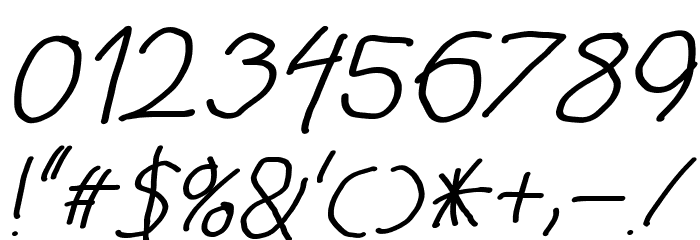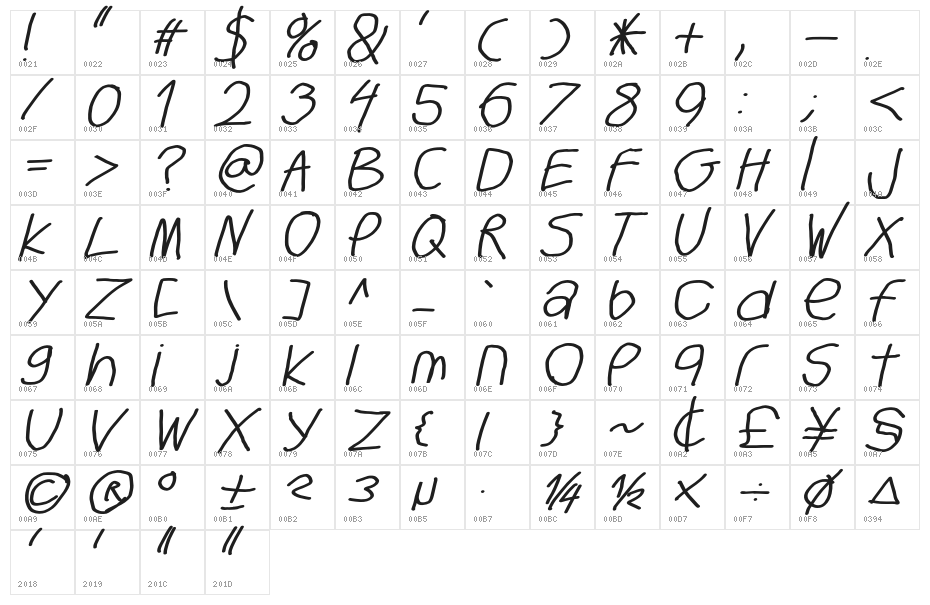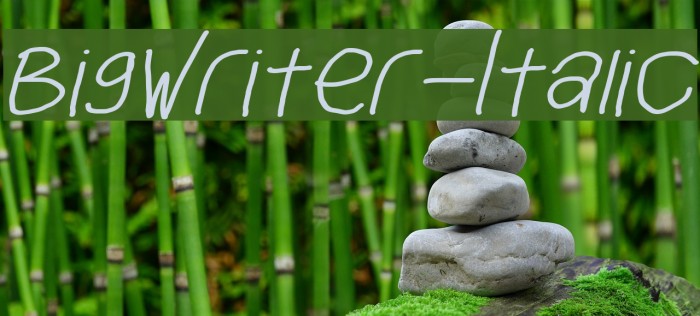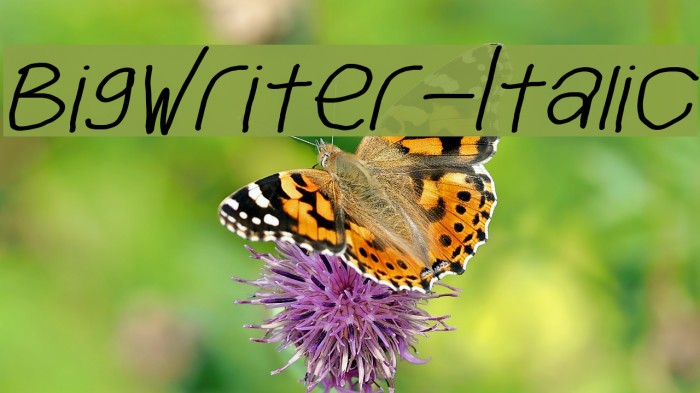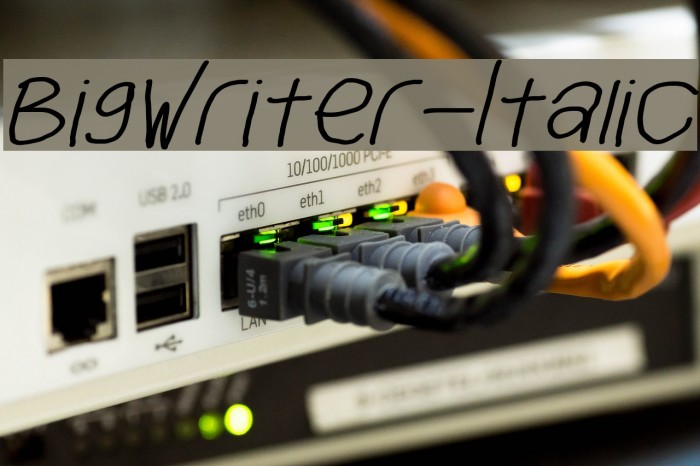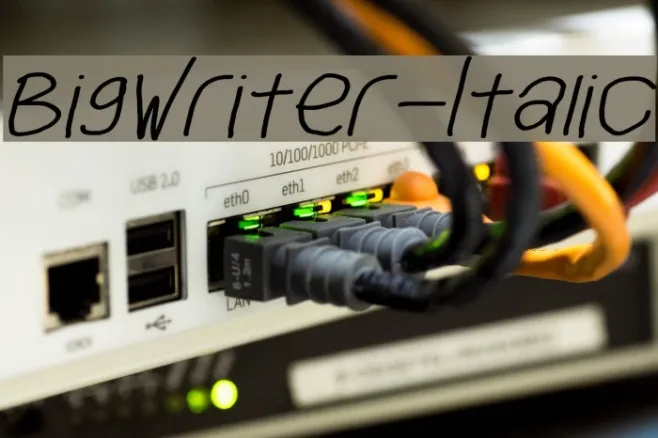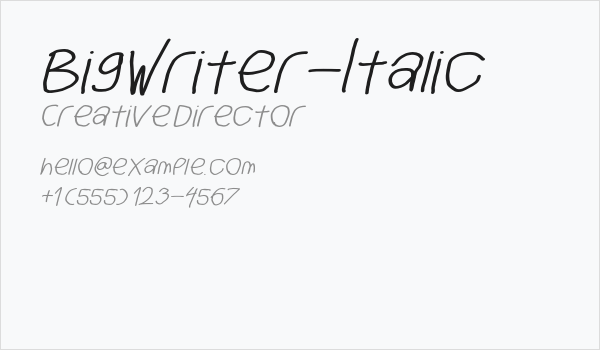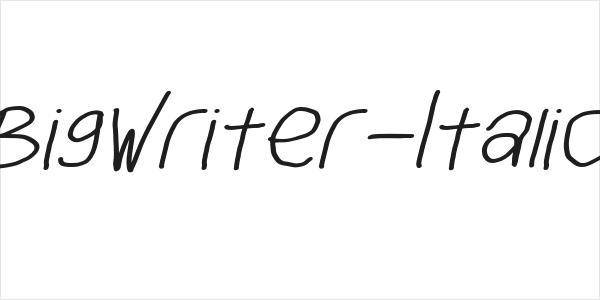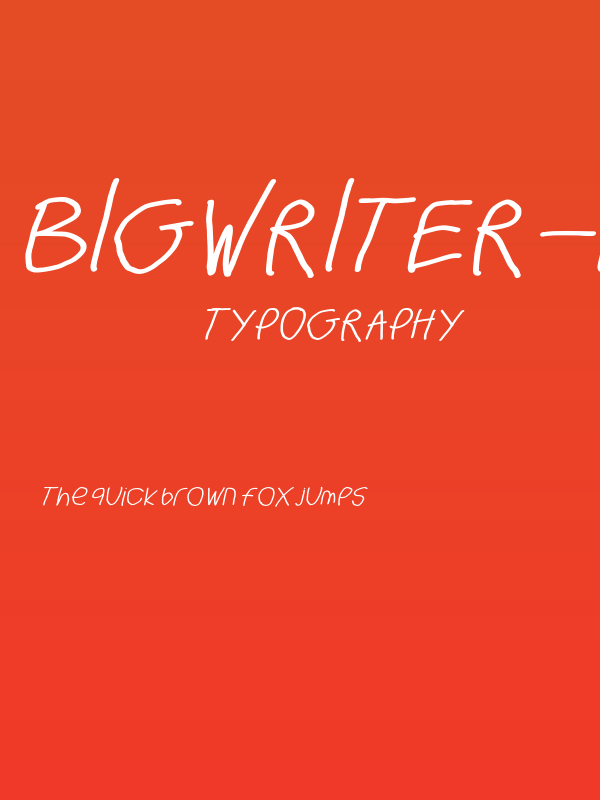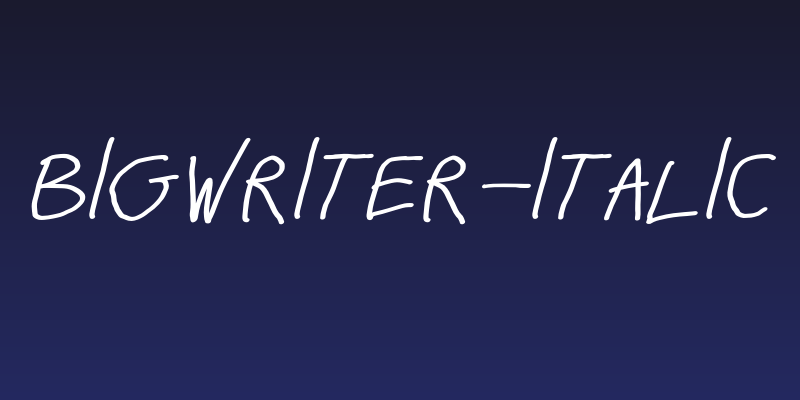
BigWriter-Italic Font
BigWriter-Italic Description
This font features a handwritten style with a casual and informal appearance. The letters are slightly slanted, giving it an italicized look, and the strokes are consistent in thickness, providing a uniform feel. The characters are rounded and smooth, with a playful and approachable vibe. This font includes both uppercase and lowercase letters, numbers, and a variety of special characters. The overall design is reminiscent of personal handwriting, making it suitable for projects that require a personal touch.
| Proposed Projects | Ideal for personal notes, invitations, greeting cards, and creative projects that require a personal, informal touch. |